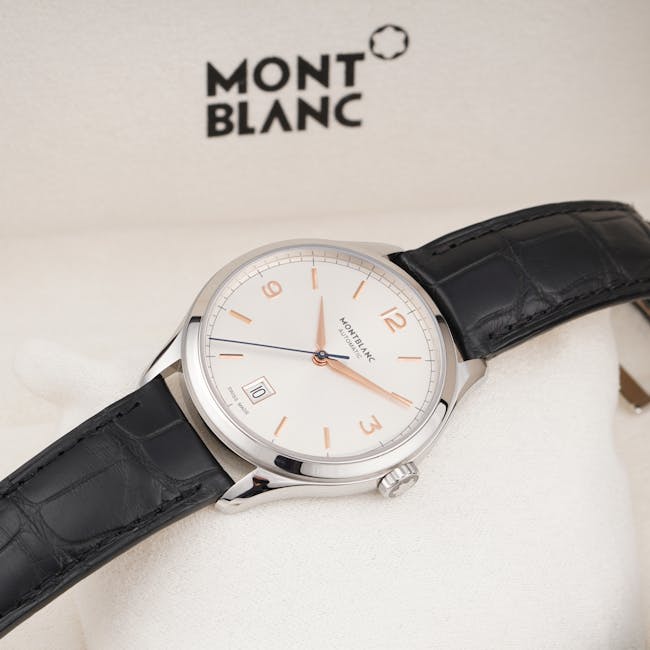
What is Company Logo Fonts?
Introduction to Company Logo Fonts
When you think of a brand, what’s the first thing that comes to mind? Often, it’s the logo. A company’s logo is its visual identity, a symbol that embodies its values, mission, and vision. But what makes a logo truly memorable? Beyond the colors and design, the font plays a crucial role. Fonts aren’t just letters on the screen; they’re a powerful element of branding that conveys emotion, tone, and style. In the world of logo design, choosing the right font can make or break a brand’s identity.
Understanding Company Logo Fonts
The Importance of Typography in Branding
Typography serves as a bridge between visual design and verbal communication. It’s not just about making text readable; it’s about creating a visual voice for your brand. The right typography can enhance brand recognition and perception. Brands like Disney and Apple have mastered the art of typography in branding. When you see their fonts, you instantly recognize the brand, even without the logo.
Different Types of Fonts
Fonts come in various styles, each with its unique personality and application. Here’s a quick overview:
Serif Fonts: These fonts have small lines or strokes attached to the end of a larger stroke in a letter. They’re traditional and evoke a sense of trust and respectability.
Sans-Serif Fonts: Clean and modern, sans-serif fonts lack the small projecting features at the end of strokes, making them ideal for digital use.
Script Fonts: Mimicking cursive handwriting, script fonts are elegant and often used for luxury brands.
Display Fonts: These are decorative fonts designed to stand out, making them perfect for headlines and logos. For a detailed guide, check out this ultimate guide to font styles.
Choosing the Right Font for Your Logo
Factors to Consider When Selecting Fonts
Selecting a font for your logo isn’t just about aesthetics. It’s about aligning with the brand’s core values and audience. Consider your target audience: Are they young and trendy or mature and professional? The font should reflect your brand’s personality. Readability is equally important; a font that’s too complex can be hard to decipher and may alienate potential customers. This guide on choosing a logo font offers more insights.
Combining Fonts Effectively
Combining fonts can enhance your logo’s design, but it requires a delicate balance. Pairing fonts involves mixing different styles to create contrast while maintaining harmony. A common strategy is to use a bold, eye-catching font for the brand name and a simpler font for the tagline. This technique not only makes the logo more interesting but also ensures clarity and impact.
Trends in Company Logo Fonts
Minimalism in Logo Fonts
Minimalism isn’t just a trend; it’s a movement that’s reshaping logo design. Simple, clean fonts are in vogue as they convey sophistication and modernity. Brands are stripping down their logos to core elements, ensuring they’re versatile across different platforms. For insight into current trends, explore the top logo trends of 2024.
Custom Fonts vs. Stock Fonts
Custom fonts offer a unique advantage: exclusivity. They allow brands to create a distinct identity that can’t be replicated. However, they come with a higher cost. Stock fonts, on the other hand, are readily available and more budget-friendly. The choice between custom and stock fonts depends on the brand’s needs and resources.
Case Studies of Effective Logo Fonts
Successful Logo Typography Examples
Let’s look at some brands that have nailed their font choices. Coca-Cola’s script font is iconic, representing tradition and nostalgia. On the flip side, brands like Uber use simple sans-serif fonts to convey modernity and efficiency. These choices aren’t arbitrary; they’re strategic and align with the brand’s ethos.
Lessons Learned from Logo Font Failures
Not all font choices are successful. Some brands have faced backlash due to poor typography decisions. For instance, when Gap attempted a logo redesign, the new font choice received widespread criticism for lacking the brand’s established identity. Such examples teach us the importance of aligning font choices with brand values and audience expectations. For more on successful logos, check out these design case studies.
In the world of branding, company logo fonts are more than just letters; they’re an integral part of a brand’s identity. The right font can convey the brand’s message, resonate with its audience, and enhance its visual appeal. As trends evolve, businesses must carefully consider their font choices, balancing between aesthetics and functionality. Ultimately, the power of typography lies in its ability to transform words into a visual representation of a brand’s essence.